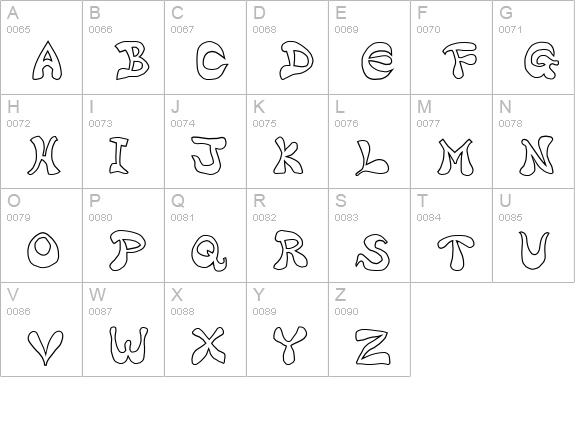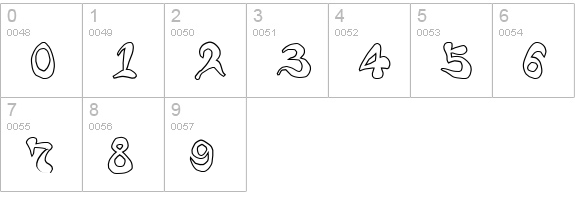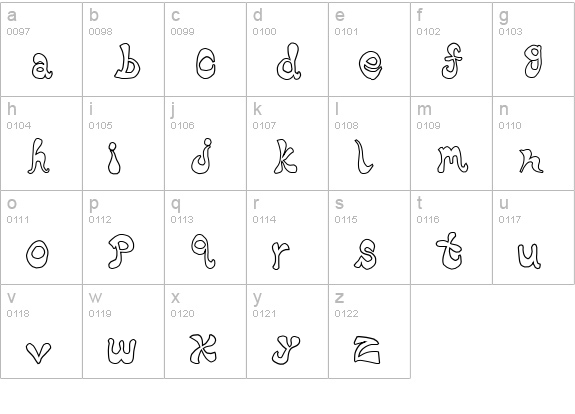
Introducing Bharatic-Font(W), a stunning and elegant font that exudes sophistication and style. This unique typeface combines traditional elements with a modern twist, making it perfect for a wide range of design projects. Whether you're creating a logo, website, or print materials, Bharatic-Font(W) will elevate your work to the next level. What sets Bharatic-Font(W) apart is not only its beauty but also its versatility. With a wide range of weights and styles, this font can adapt to any design aesthetic, from sleek and minimalist to bold and expressive. Its clean lines and intricate details make it a standout choice for designers looking to make a statement. And the best part? Bharatic-Font(W) is completely free to download at FontsMarket.com. That's right, you can add this stunning font to your collection without breaking the bank. So why wait? Download Bharatic-Font(W) today and take your designs to new heights!